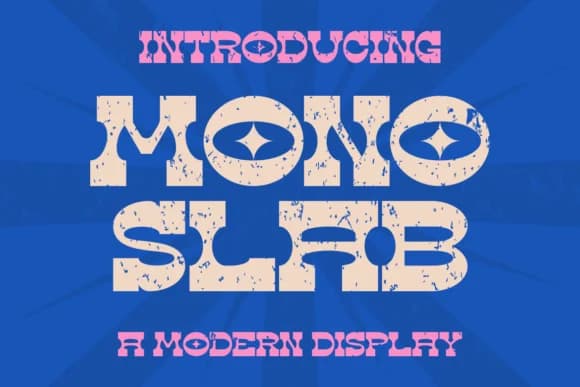
Thick, square-cut serifs give Mono Slab its unmistakable personality, anchoring each letterform with visual weight and a distinctly retro character that reads immediately. Created by Marvadesign, this bold display typeface blends the structured rhythm of monospaced design with classic slab-serif aesthetics. The letters maintain readability whether set large on a poster or smaller within a complex layout, never losing their mechanical confidence.
This font excels when used for vintage record label typography, concert poster headers, craft brewery branding, and boutique product packaging where type does the heavy lifting. The monospaced structure keeps compositions geometrically grounded, which matters when you're juggling multiple elements or building layouts that feel intentional rather than random. Designers working across these projects appreciate how the slab serifs maintain clarity even when tracked tight or set in large sizes without losing definition or visual impact.
Mono Slab belongs in the toolkit of any designers building identities that need real backbone: restaurant menus, booklet covers, vintage-inflected branding, or any project where the typeface itself carries most of the visual weight and impact. Its blend of retro aesthetics and mechanical precision makes it flexible across industries yet distinctive enough to stand apart. You'll find it on Creative Fabrica, ready to anchor your next project.
- Sturdy, Confident, Mono Slab
Mono Slab Font is a slab serif font that shines as a display or heading face. Pair it with a clean sans-serif or serif font for body text β the contrast creates a clear hierarchy while the two styles stay balanced and easy to read.
Mono Slab Font